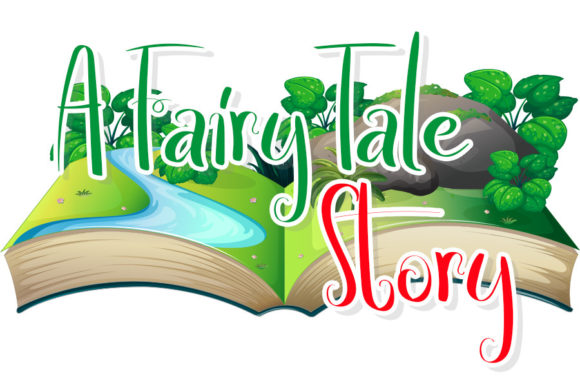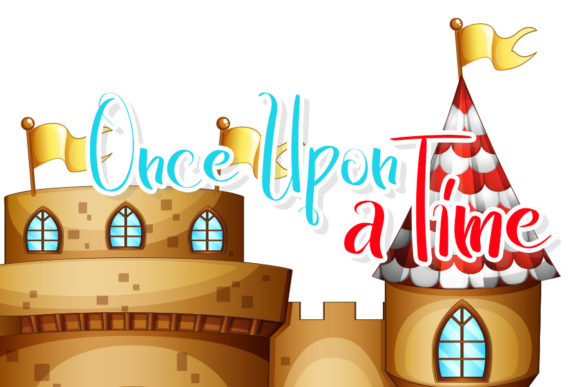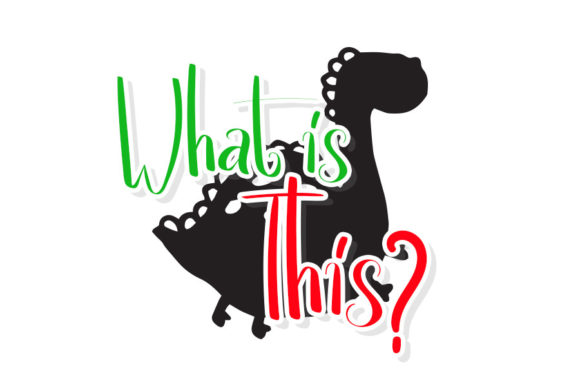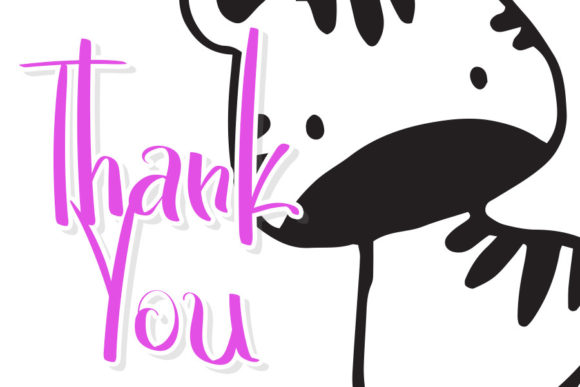
Introducing Harry Fantasy Font: A Magical Handwritten Font for Your Designs
Are you a designer or crafter looking for a unique and whimsical font to add a touch of magic to your projects? Look no further than Harry Fantasy Font! This chic and modern handwritten font is sure to transport your designs to a world of wonder and enchantment.
What is Harry Fantasy Font?
Harry Fantasy Font is a carefully crafted handwritten font that boasts a modern and distinctive style. Its whimsical flair makes it perfect for a wide range of design applications, from creative projects to commercial use. With its unique character and charm, Harry Fantasy Font is sure to make your designs stand out from the crowd.
Key Features of Harry Fantasy Font
- Whimsical and Handwritten Style: Harry Fantasy Font features a playful and handwritten style that adds a touch of personality to your designs.
- Modern and Unique: This font’s modern and distinctive style ensures that your designs will look fresh and contemporary.
- Magical and Enchanting: With its whimsical flair, Harry Fantasy Font is perfect for creating designs that transport your audience to a magical world.
- Multilingual Support: This font supports multiple languages, making it a great choice for designers and crafters working on international projects.
Harry Fantasy Font is an excellent choice for designers and crafters working on a wide range of projects, including:
- Branding and Packaging: Add a touch of magic to your brand’s packaging and marketing materials with this unique font.
- Digital Art and Illustrations: Use Harry Fantasy Font to create stunning digital art and illustrations that transport your audience to a world of wonder.
- Crafting and Scrapbooking: This font is perfect for crafters and scrapbookers looking to add a personal touch to their projects.
- Web Design and Development: Use Harry Fantasy Font to create engaging and visually appealing website designs that capture your audience’s attention.
Why Choose Harry Fantasy Font?
With so many fonts available, why choose Harry Fantasy Font? Here are just a few reasons why this font stands out:
- Unique and Exclusive: Harry Fantasy Font is a one-of-a-kind font that will make your designs stand out from the crowd.
- Easily Readable: Despite its whimsical style, this font is highly readable, making it perfect for body text and headlines.
- High-Quality Design: Harry Fantasy Font is designed with high-quality craftsmanship, ensuring that it looks great in any design application.
Tips for Using Harry Fantasy Font
To get the most out of Harry Fantasy Font, here are a few tips:
- Use it as a Headline Font: Harry Fantasy Font is perfect for headlines and titles, where its whimsical style can really shine.
- Pair it with a Serif Font: For body text, pair Harry Fantasy Font with a clean serif font to create a beautiful contrast.
- Experiment with Colors and Textures: Don’t be afraid to get creative with colors and textures to really make your designs pop.